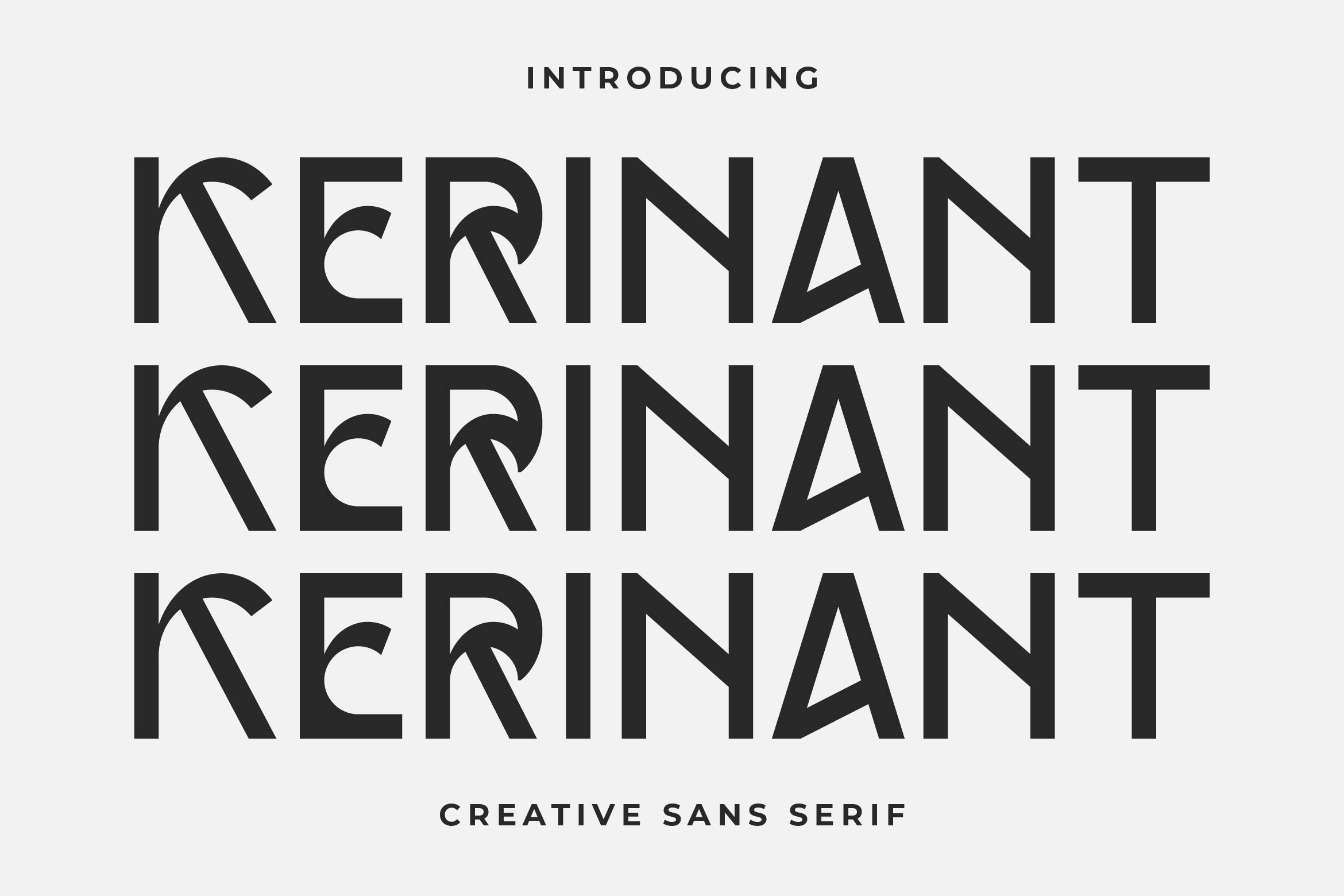
- Kerinant Stylish Sans Font
Kerinant is a stylish and innovative sans serif font crafted to bring originality and strength to your designs. With its clean structure, distinctive letterforms, and modern attitude, Kerinant is perfect for branding, logo design, packaging, posters, editorial layouts, and digital content.
Its creative design balances geometric precision with artistic personality, making it suitable for fashion, tech, startups, and any project that needs a contemporary and expressive tone.
The font includes uppercase and lowercase letters, numerals, punctuation, multilingual support, and a set of stylistic alternates for added uniqueness.
Stand out with confidence using Kerinant — the creative sans serif that blends modern minimalism with bold identity.